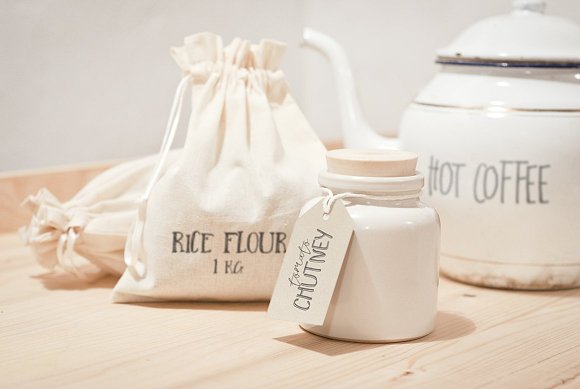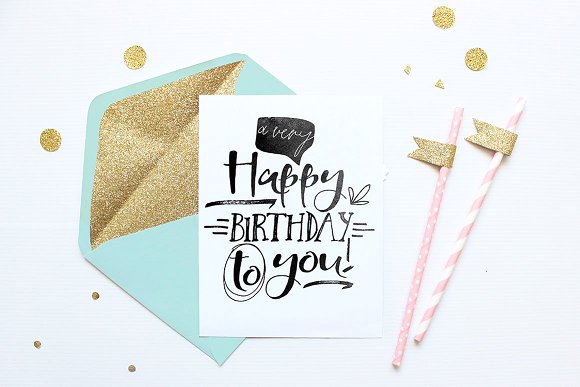
Introduction to Silverwaves Font
Have you ever stared at a blank canvas, trying to bring your creative project to life, but struggling to find the perfect font to match your vision? That’s exactly where I found myself last week, and I couldn’t help but feel a sense of excitement when I stumbled upon the beautiful Silverwaves Font.
Designed by the talented team at Creativeqube, this stunning handcrafted font is a game-changer for designers and creatives alike. Its elegant and sophisticated design makes it a valuable addition to any design resource, offering endless possibilities for high-quality projects.
Not only is the Silverwaves Font free to download, but its transparent background and sleek design also make it a perfect fit for any creative project, from logo designs to website headers.
Key Features of Silverwaves Font
- High-quality, elegant font perfect for creative projects and design resources.
- Features a transparent background, making it ideal for use on various backgrounds.
- Includes multiple font weights and styles, offering designers flexibility and creative freedom.
- Designed with high resolution in mind, suitable for use in various sizes and resolutions.
- Perfect for use in logos, typography, and other design elements where a unique and sophisticated look is desired.
Honest Review: Silverwaves Font
I recently stumbled upon the Silverwaves Font while searching for a free design resource for my next creative project. I was pleasantly surprised by the quality and versatility of this font.
- ✨ High-quality design with a unique, wave-like aesthetic
- ✨ Suitable for a wide range of creative projects, from logos to signage
- ✨ Allows for customization with a transparent background, adding an extra layer of flexibility
- ⚠️ Limited font styles and weights, which may not be suitable for complex typography
- ⚠️ May not be as readable on small screens or in certain contexts
Overall, I’m impressed with the Silverwaves Font and would recommend it for designers looking for a high-quality, free design resource. While it may not be perfect, its unique aesthetic and customization options make it a valuable addition to any design toolkit.
The Silverwaves Font is a high-quality design resource perfect for creative projects that require a touch of elegance. With its unique style and versatility, it’s an excellent choice for designers and artists looking to elevate their work.
Tips for Getting the Most Out of Silverwaves Font
To get the most out of the Silverwaves Font, use it with a transparent background to create a sense of depth and dimension. Experiment with different font sizes, colors, and styles to find the perfect combination for your design project.
The Silverwaves Font is perfect for a variety of design projects, including:
- Photography and art projects
Can I use the Silverwaves Font with a transparent background?
Yes, the Silverwaves Font is designed to be used with a transparent background, making it ideal for use in web design, graphic design, and other creative projects where a clear background is required. The font’s transparent background allows the underlying design or image to show through, creating a clean and professional look.